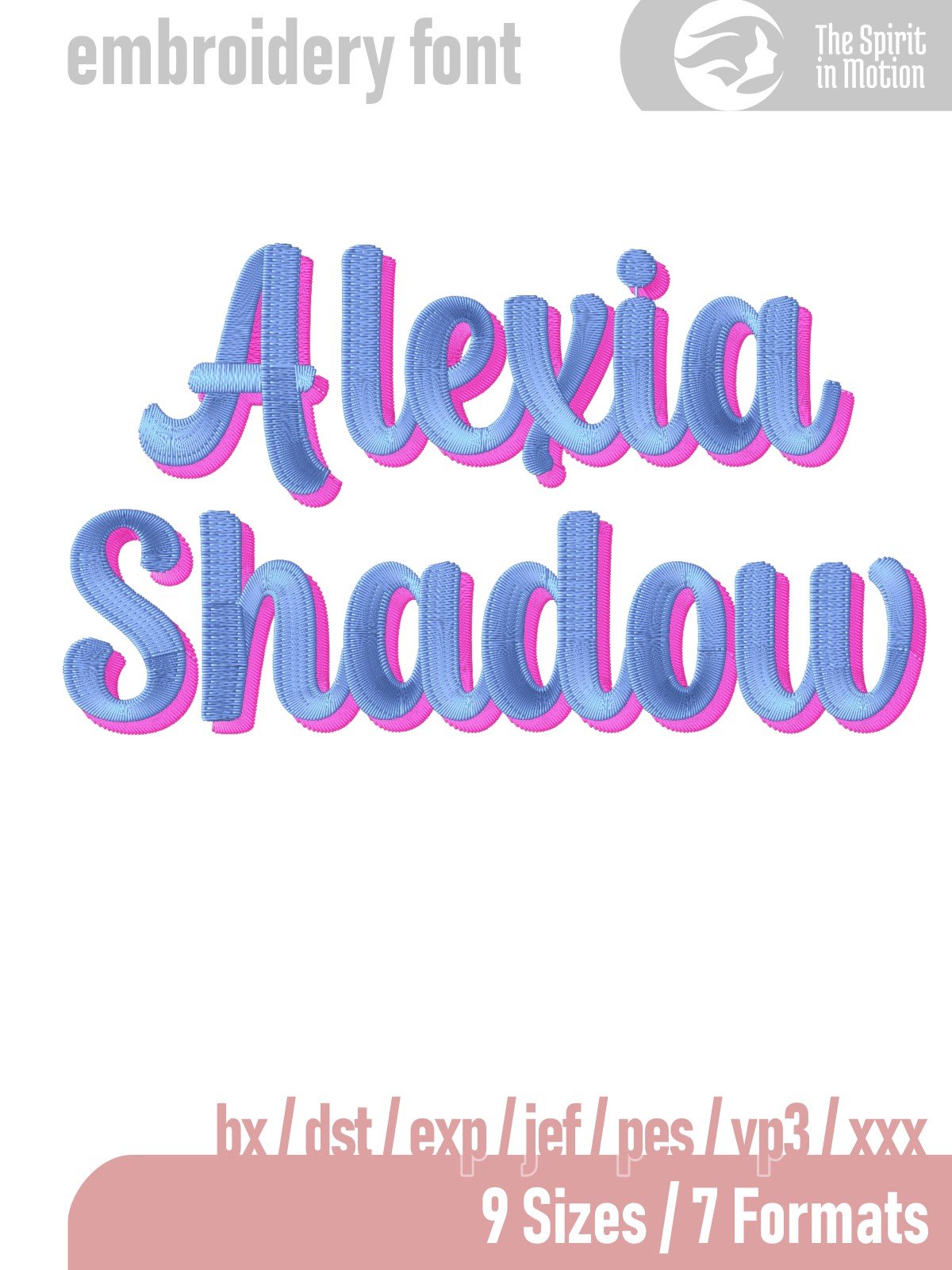
Alexia Shadow Script Embroidery Font for Crafting | BX, PES, DST, JEF
Alexia Shadow is a bold, flowing script embroidery font perfect for adding an elegant touch to your projects. With its smooth connections and soft curves, it’s ideal for names, monograms, wedding accents, baby items, and personalized gifts. Carefully digitized for clean stitch-outs and consistent results, this stylish font brings a modern calligraphy feel to machine embroidery.